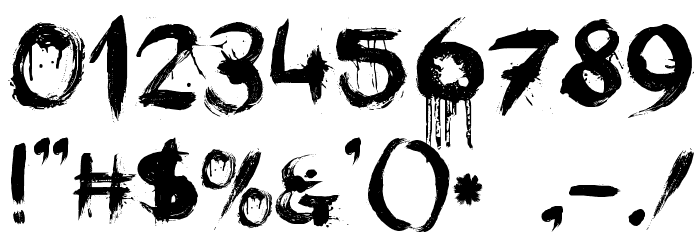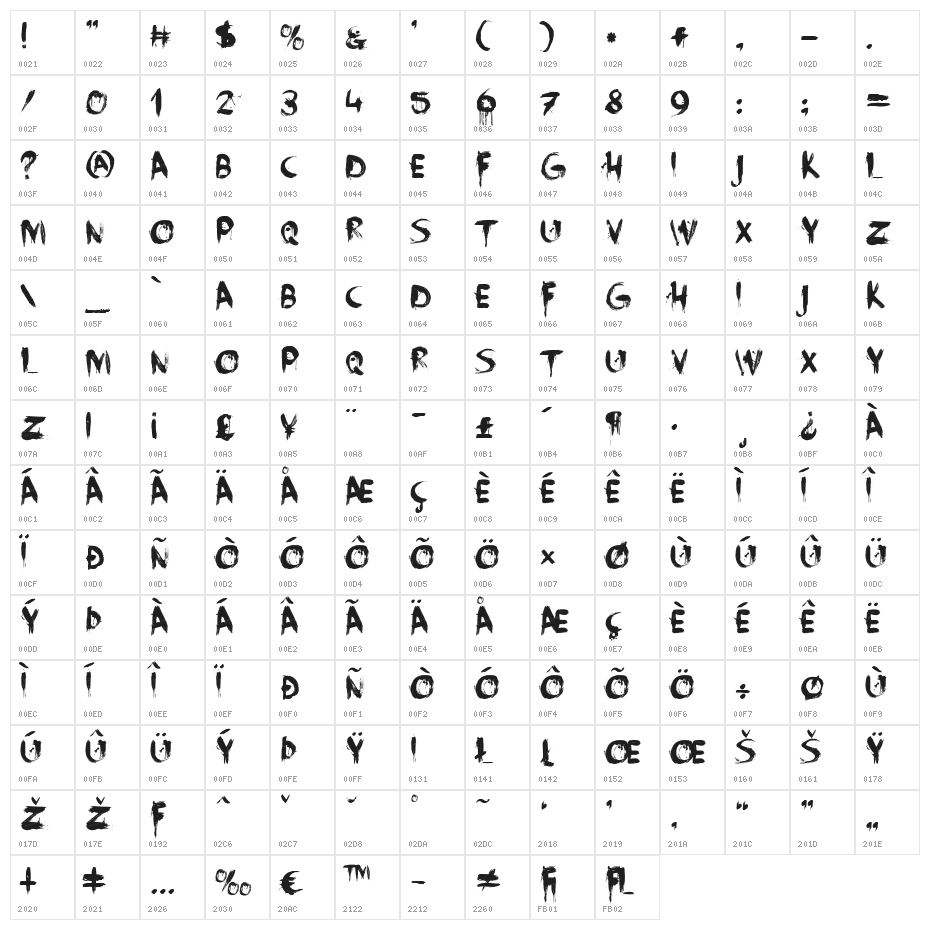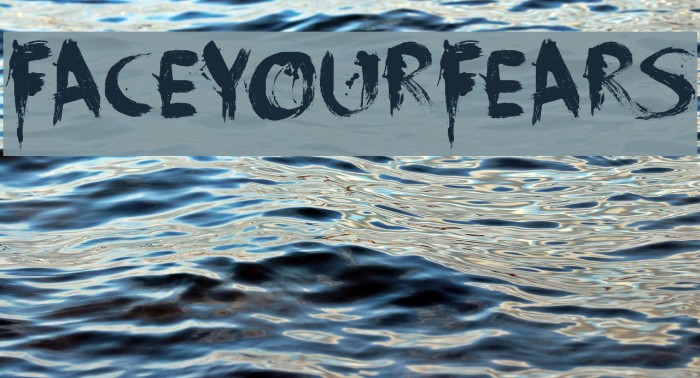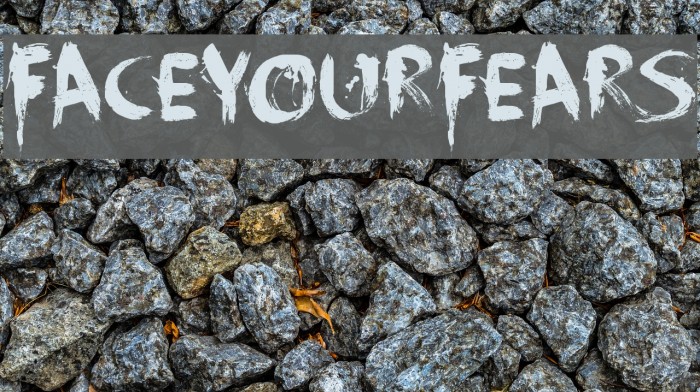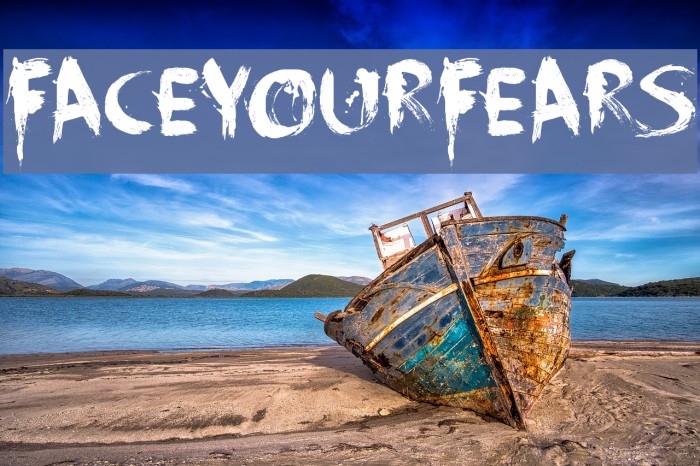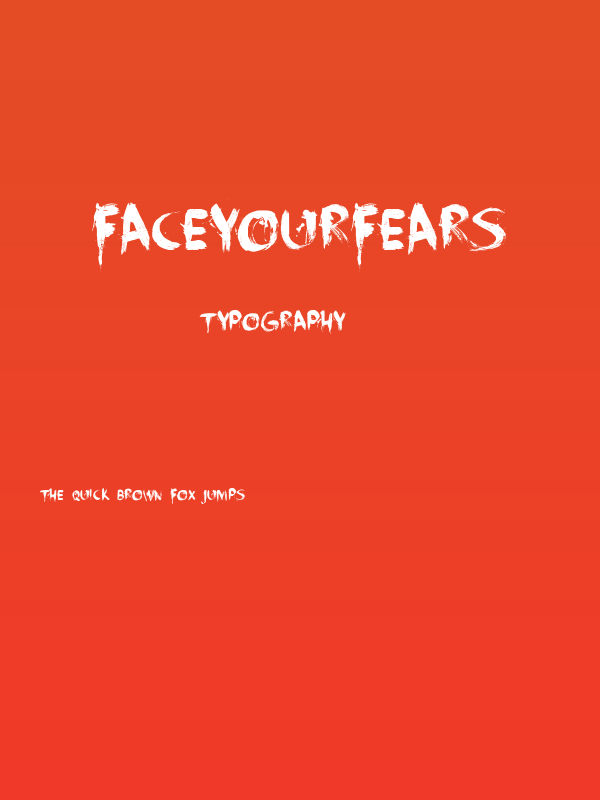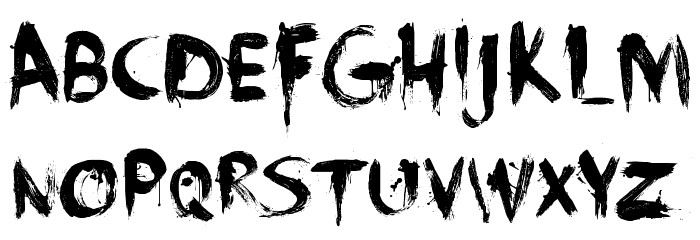
FaceYourFears Font
FaceYourFears Description
This font features a bold, distressed style with a brush-like texture that gives it a raw, edgy appearance. The characters appear as if they are painted with uneven strokes, creating a sense of movement and intensity. The uppercase and lowercase letters maintain a consistent style, with jagged edges and varying thickness that add to the chaotic aesthetic. Numbers and special characters follow the same design principles, ensuring a cohesive look across all elements. This font is ideal for projects that require a dramatic and impactful visual statement.
| Use Case | Headlines, Posters, Album Covers |
| Proposed Projects | Ideal for horror-themed designs, album covers, posters, and any project needing a dramatic, edgy look. |